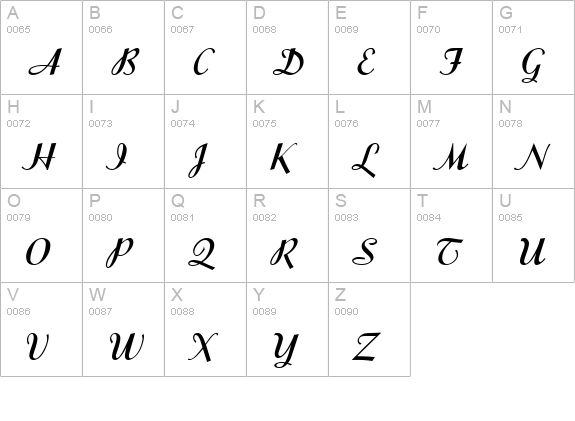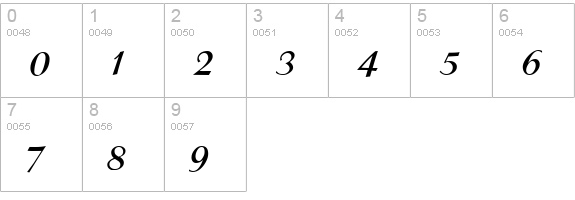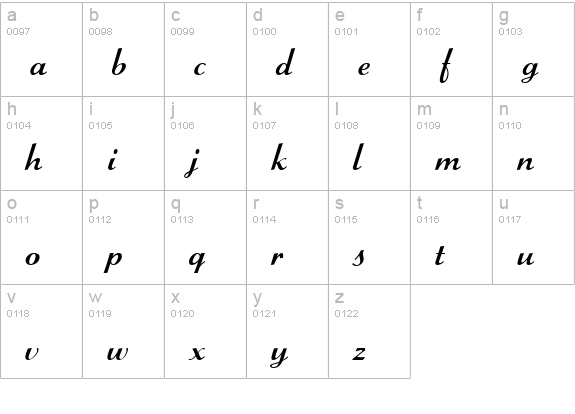
Swizzle Script Font Details
Swizzle Script font is a charming and versatile typeface that exudes elegance and playfulness. With its fluid lines and whimsical curls, this font is perfect for adding a touch of sophistication to any design project. Whether you're creating invitations, greeting cards, or branding materials, Swizzle Script will surely make your text stand out. The best part? Swizzle Script font is free to download at FontsMarket.com. You can easily access this lovely font and incorporate it into your projects without any cost. Don't miss out on the opportunity to enhance your designs with the beauty of Swizzle Script font. Download it now and unleash your creativity!